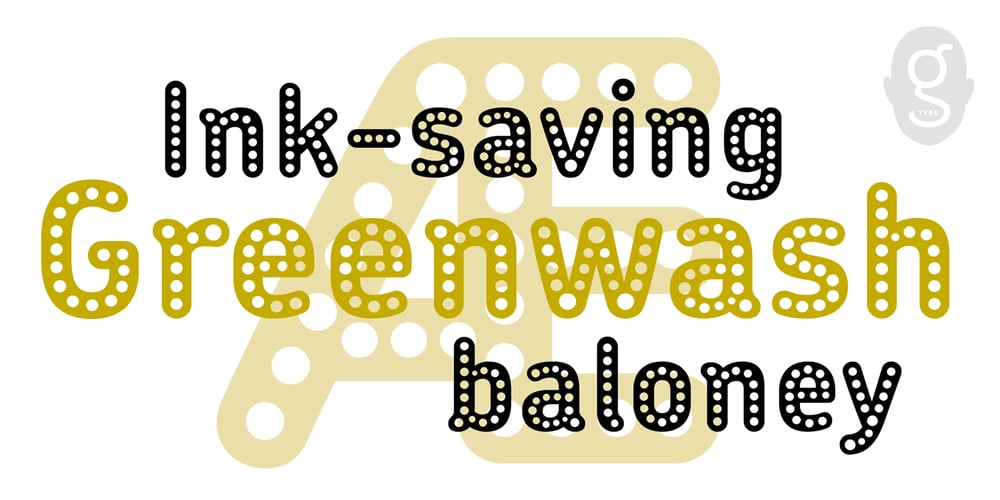
Chevin Eco Font Family was designed by Nick Cooke and published by G-Type. Chevin Eco contains 2 styles and family package options. Chevin Eco is a whimsical display variation on the original Chevin typeface with knocked-out circular holes producing a glitzy neon effect that saves toner when printed. Simultaneously glamorous, green and good fun.